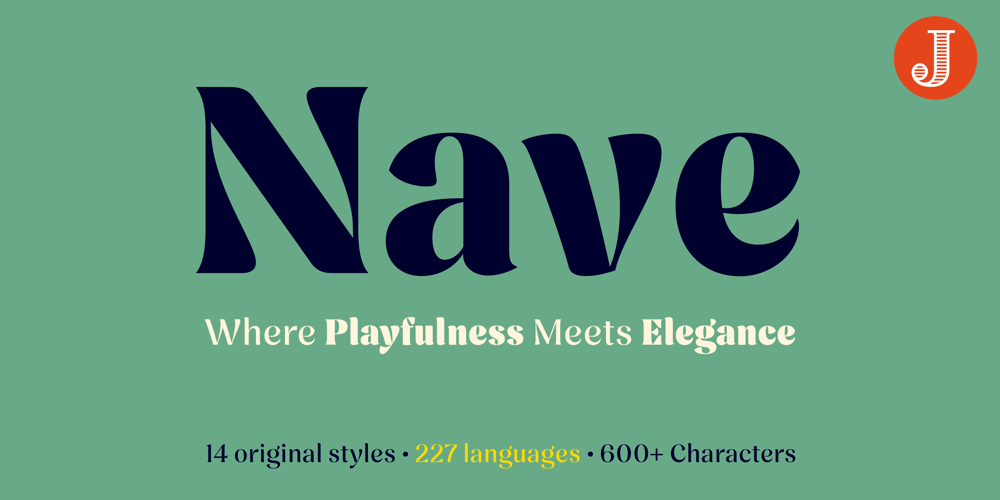
Nave Font Family was designed by Jamie Clarke and published by Jamie Clarke Type. Nave contains 14 styles and family package options. Nave is the perfect choice for designers looking to intertwine tradition with creativity. Its characters are framed by a formal, rigid outer shape, revealing an unexpected twist: a flowing, sensuous inner form. These contrasting qualities breathe life into words, inviting readers on a journey from the familiar to the extraordinary.Nave is designed for forward-thinking designers and businesses who value classic design but also want to infuse their work with personality and warmth.What’s in a name?Around my studio, numerous centuries-old churches grace the surrounding villages. Most have traditional stone exteriors, square towers, and utilitarian shapes. However, their interiors often showcase creativity with decorative columns, fluid arches, and intricate ceilings. Nave follows this concept: it has a conventional exterior shape, but its interior features are dynamic and fluid.For additional license options like app, enterprise, multi-user, and self-hosted web, get in touch at: Jamie Clarke Type